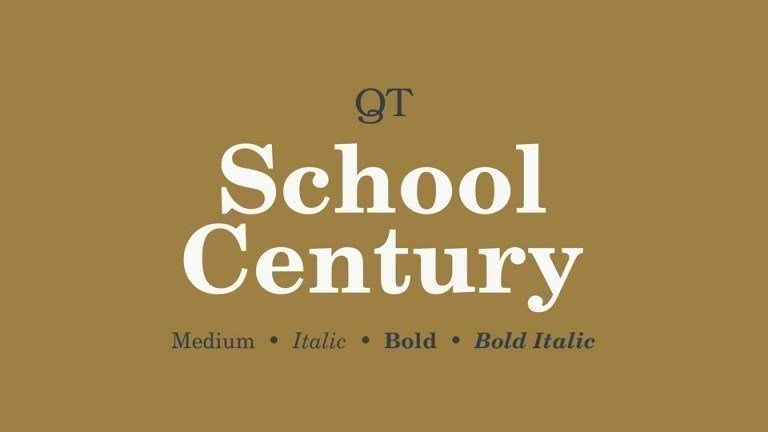
School Century Serif Font
School Century Font is an elegant, fresh and modern serif typeface, with unusual yet functional shapes, that combines characteristics of Roman type with elements of calligraphy and Victorian style.
School Century Font has a unique appearance that makes it ideal for editorial design such as book covers and magazine website’s headers as well as brand identity design.